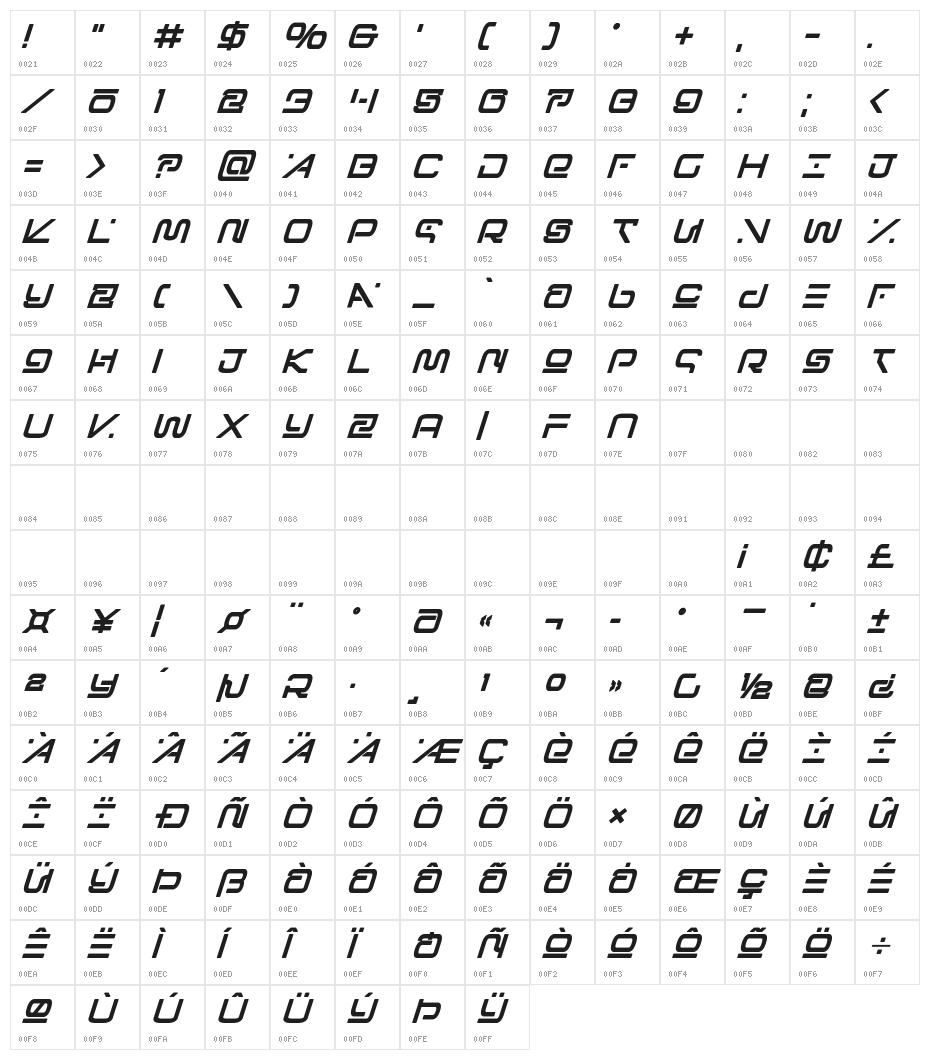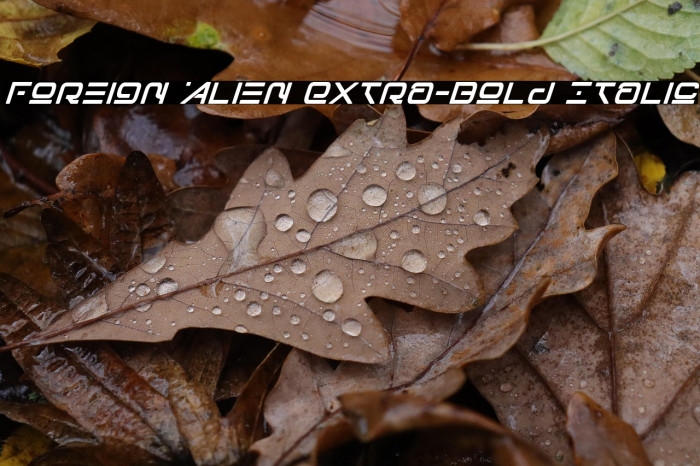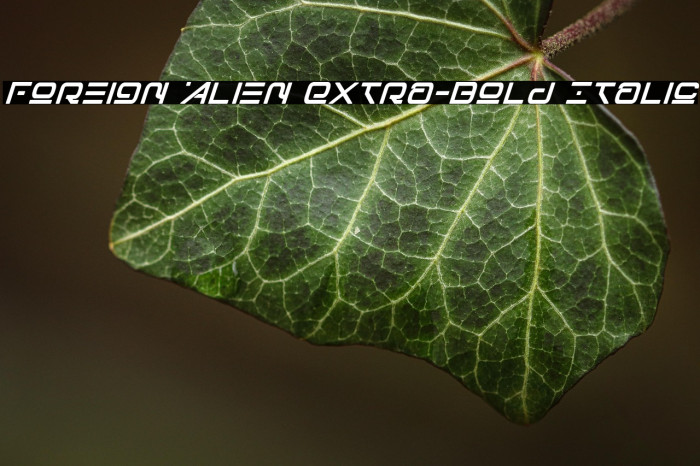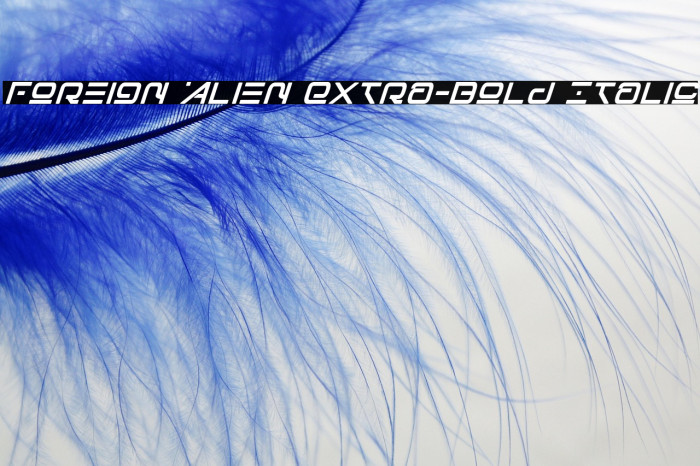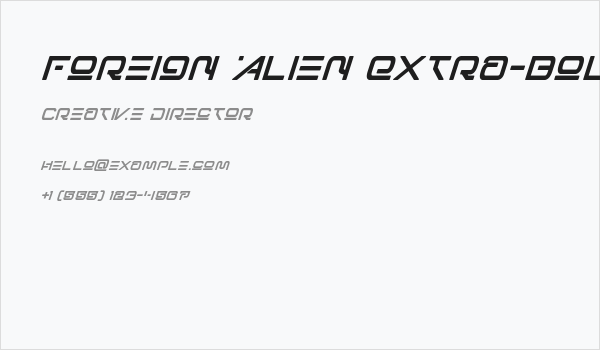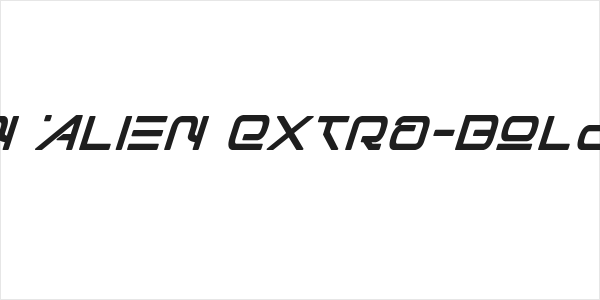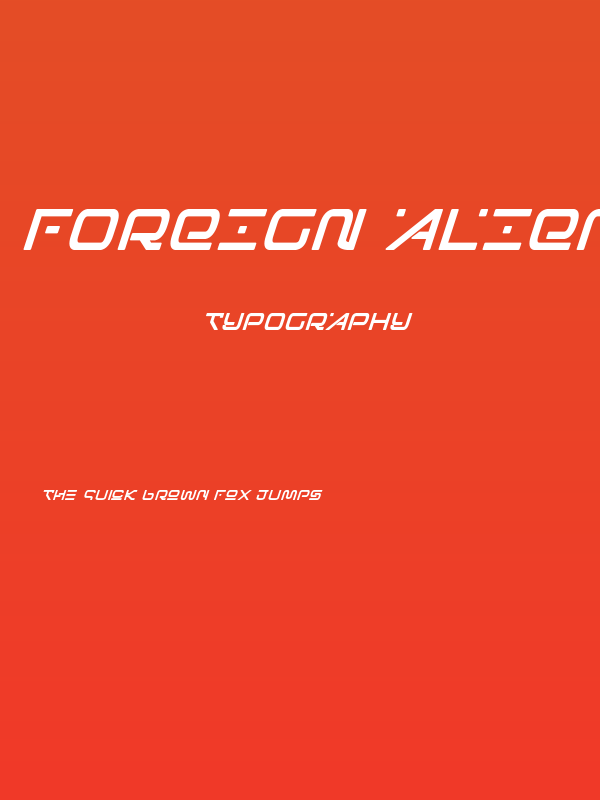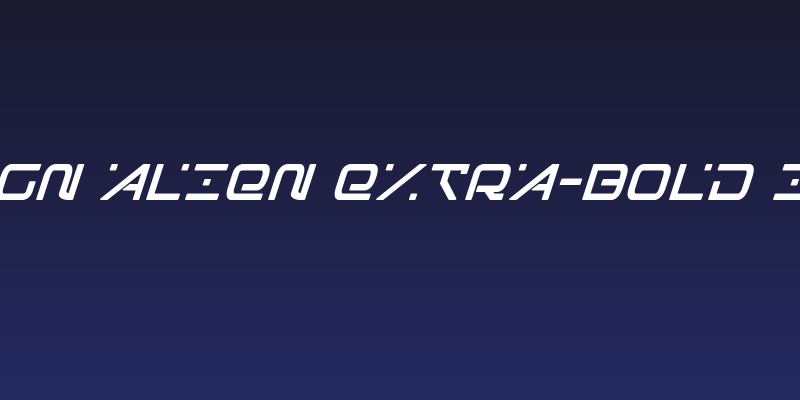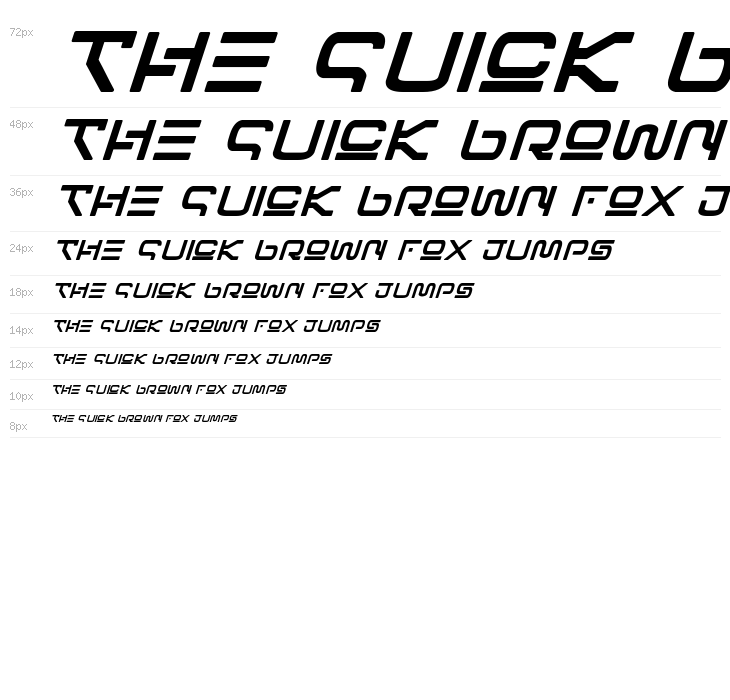
Foreign Alien Extra-Bold Italic Font
Foreign Alien Extra-Bold Italic Description
This font features a futuristic and dynamic design with a bold and italicized style. The characters are uniquely crafted with sharp angles and a slanted orientation, giving it a sense of movement and speed. The uppercase and lowercase letters maintain a consistent design language, with the lowercase being slightly more compact. Numbers and special characters are designed to match the overall aesthetic, ensuring uniformity across all glyphs. The font's distinct appearance makes it suitable for projects that require a modern and edgy look.
| Proposed Projects | Ideal for sci-fi themed designs, video game titles, tech branding, and futuristic posters. |